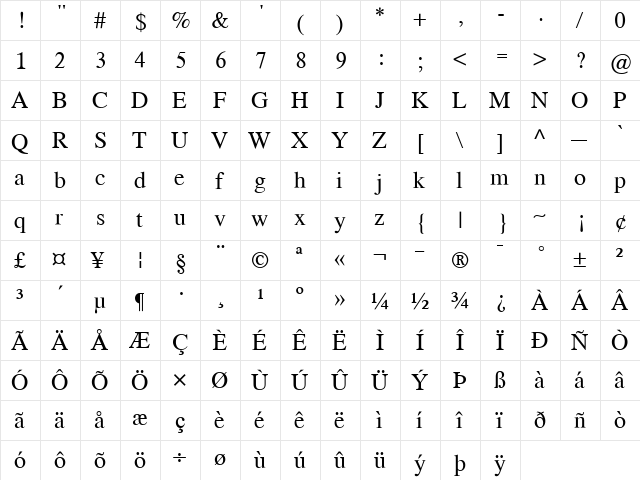
RomanCyrillic Std Regular Font Preview
RomanCyrillic Std Regular
RomanCyrillic Std Regular Font Details
| Foundry | Dr. Sebastian Kempgen; under lic. from URW |
Design Context for RomanCyrillic Std Typeface
RomanCyrillic Std offers clean, dependable letterforms without strong stylistic allegiance, making it a practical choice for designers who need flexibility.